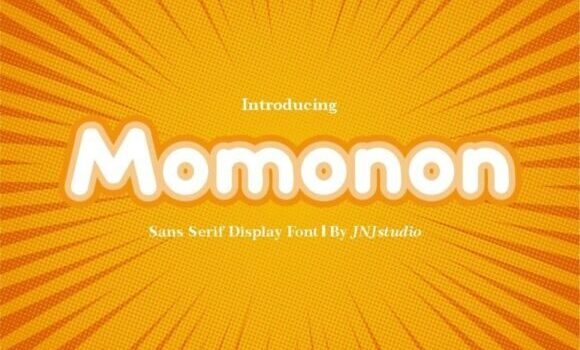
momonon
Momonon Font – Free Download Introduction to Momonon Font Introducing “Momonon” is a Modern Display Sans Serif typeface designed for impactful and eye-catching visuals. 📸 Preview Gallery 6 images 📌 Product Name Momonon Font 👤 Author JNJ studio 📂 Category